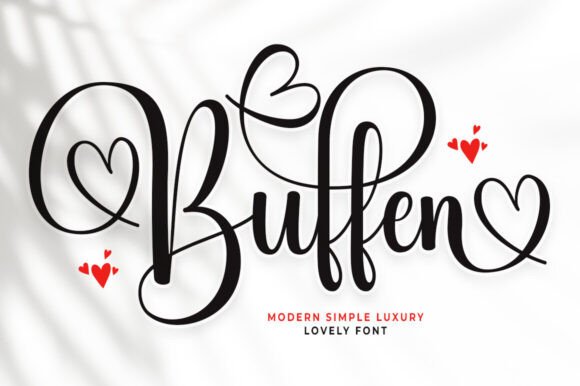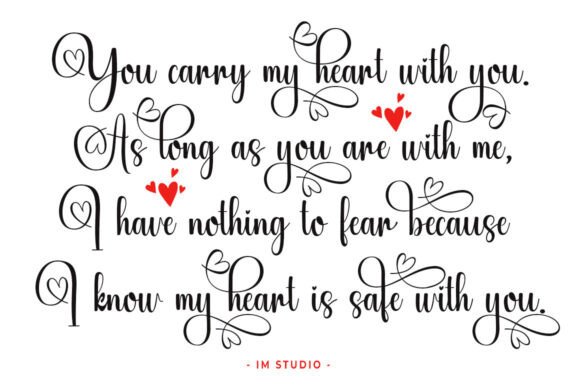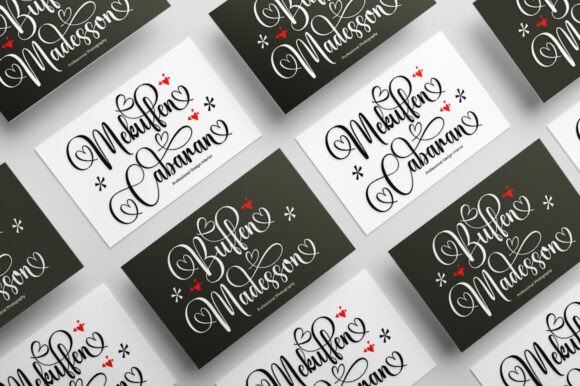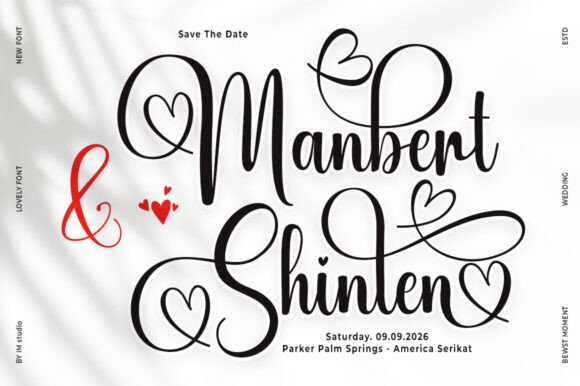
Buffen Font
About the Buffen Font
Let us introduce you to Buffen Font, where timeless design meets modern craftsmanship. Buffen Script is an elegant handwritten font with a stunning modern touch. This font is designed with fine details and artistic curves that give a luxurious yet friendly impression. Suitable for various design purposes, Buffen Script can be used on wedding invitations, logos, branding, greeting cards, and other creative projects.
Buffen Script’s elegant yet friendly personality makes it ideal for branding projects requiring a touch of sophistication, particularly logos, short headlines, and packaging design where its refined curves shine. It also works well on stationery and invitations, adding a personal yet professional feel. However, its delicate details may become illegible at smaller sizes, making it unsuitable for body text or UI elements.
For optimal visual harmony, pair Buffen Script with a clean sans-serif like Montserrat for a contemporary feel, or a classic serif such as Garamond for a more traditional approach. A geometric sans-serif, such as Futura, could also create a striking contrast, depending on the desired level of boldness. Avoid pairing it with other script fonts to prevent visual clutter.
The font projects a modern, friendly, and slightly luxurious feel, suitable for brands aiming for a balance of approachability and upscale aesthetics.
Buffen Font Usage Examples
Buffen Font Example